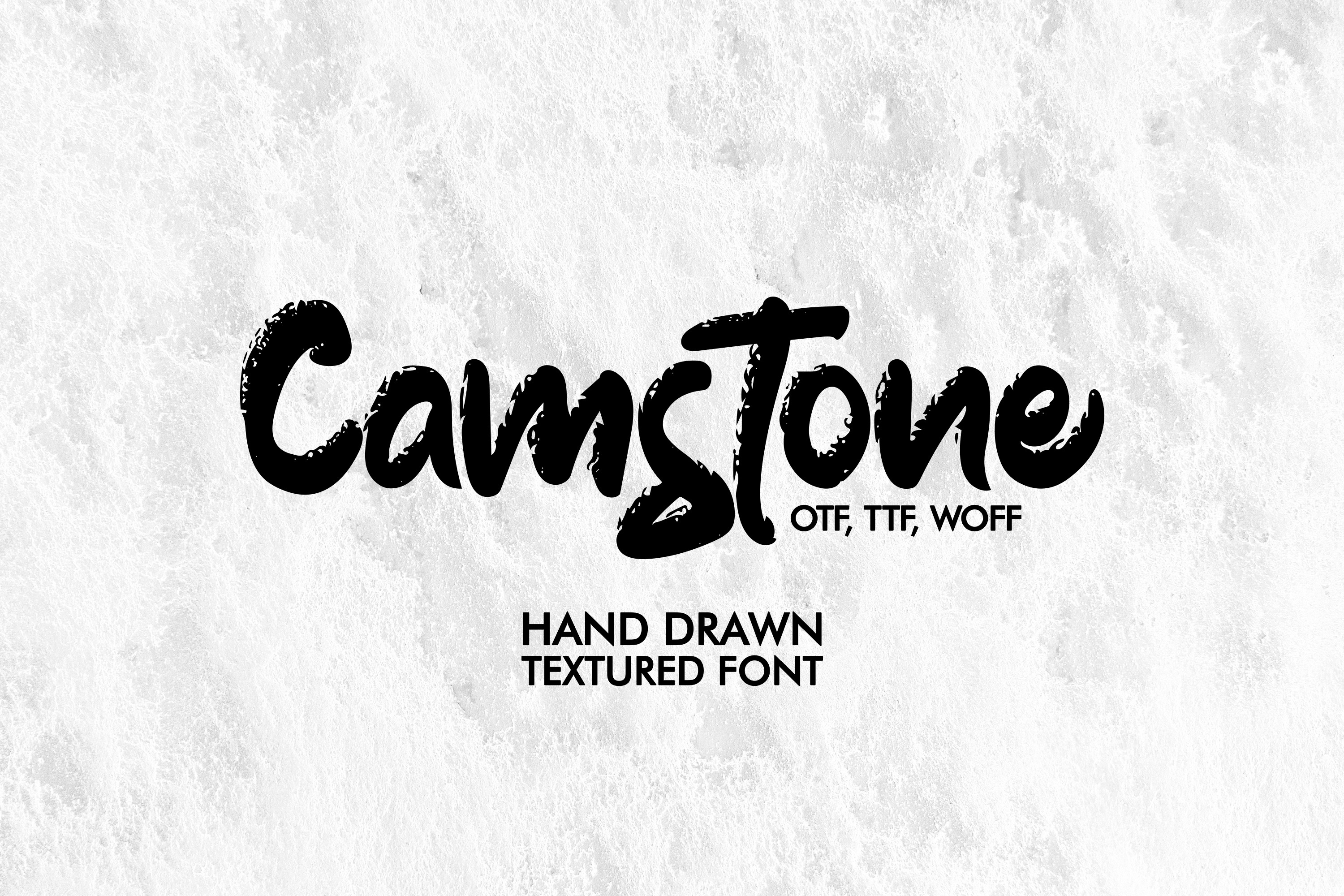
Camstone. Textured Font
Camstone - new fresh Handwritten brush font. Hand drawn textured Font for lettering, headlines, posters, Logos, t-shirt designs. Suitable for imitating chalk writing and so much more.